Before the scent touches skin, it whispers through typography.
Every stroke on a perfume box, every curve on a lipstick cap—speaks of emotion, quality, and identity. For beauty brands, Luxury Perfume & Cosmetics Fonts aren’t just decoration; they’re the visual scent of your story.
Your customers might not consciously analyze the serif weight or the kerning of your logo, but they feel it. The same way we sense the difference between imitation and authenticity, typography signals luxury before the unboxing even begins.
Luxury thrives on restraint.
Typography for perfume and cosmetics branding must balance two emotions: desire and trust. Too decorative, and it feels cheap; too sterile, and it loses allure. Fonts define that delicate equilibrium.
A study on design psychology by WebDesignerDepot highlights how specific typographic features—contrast, spacing, and rhythm—affect consumer trust and perceived value. A clean serif can make a brand look premium even before a customer reads a single word.
If your packaging feels chaotic, no photography can save it. But when your typography breathes luxury, even a minimal layout can captivate. That’s why choosing the right Luxury Perfume & Cosmetics Fonts is as strategic as formulating your scent.
Let’s explore fonts that translate elegance into design—tested and trusted for brands that aim to look premium, polished, and unforgettable.
Kastroz leads the list. A luxury vintage serif that blends timeless editorial beauty with bold structure. Its ligatures make perfume wordmarks feel instantly iconic—ideal for embossed gold foils and bottle engraving.
For minimalist elegance, Hareva brings a sleek retro-modern balance. Perfect for high-end skincare lines or clean cosmetic packaging that wants to feel sophisticated without over-styling.
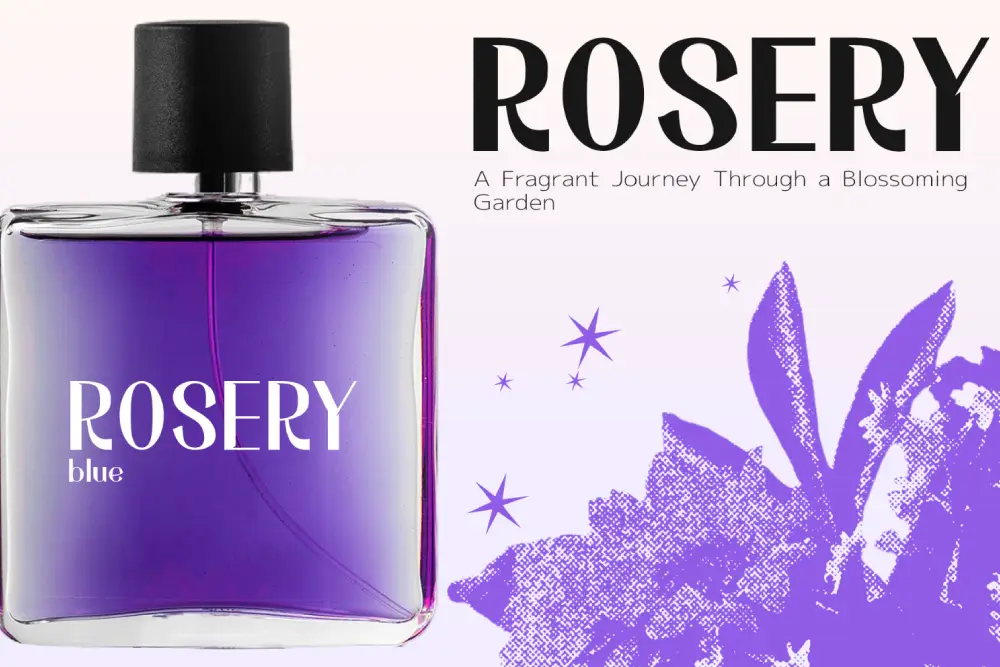
Locrian keeps luxury grounded with precision. Its high contrast strokes make it perfect for magazine covers, in-store signage, or long-form storytelling on perfume cards.
And when you want to evoke the glamour of art-deco couture, Olyphs is your visual time machine. This typeface radiates 1920s opulence—geometric, golden, cinematic. Imagine it engraved on a crystal bottle or printed on velvet packaging.
Luxury is not just about polish—it’s about humanity.
That’s why modern brush and handwritten fonts are finding their place in high-end cosmetics and limited-edition perfumes.
Astogria Bejha adds organic authenticity. It’s perfect for artisanal skincare or nature-inspired perfume series. The hand-drawn strokes make your brand feel genuine yet refined.
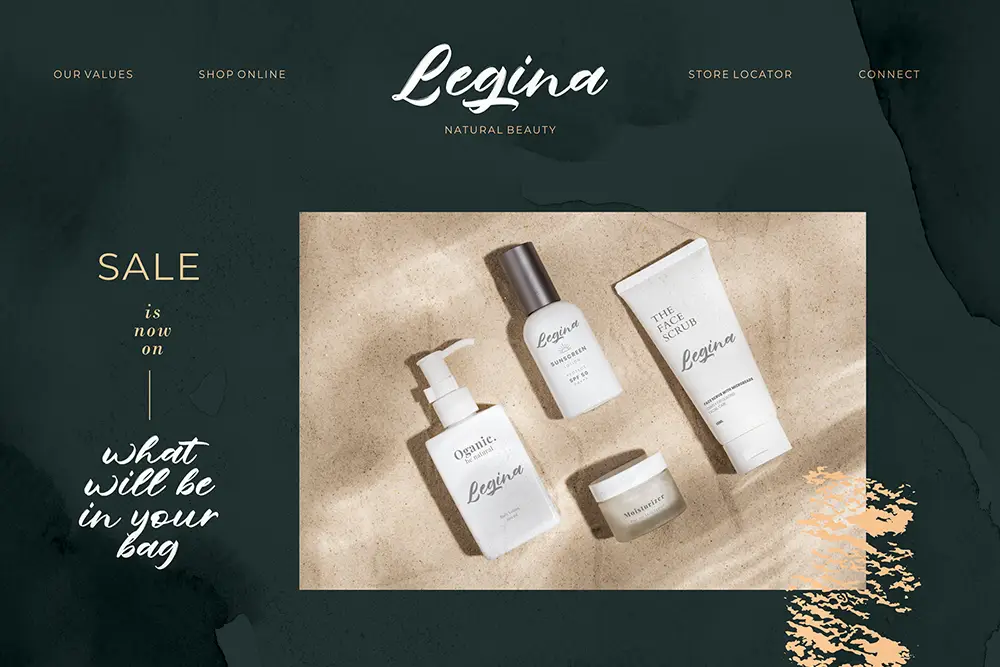
Then there’s Hadejah, an elegant signature font designed for personal flair. Perfect for perfume designers who brand themselves—its fluid, graceful curves express individuality and refinement.
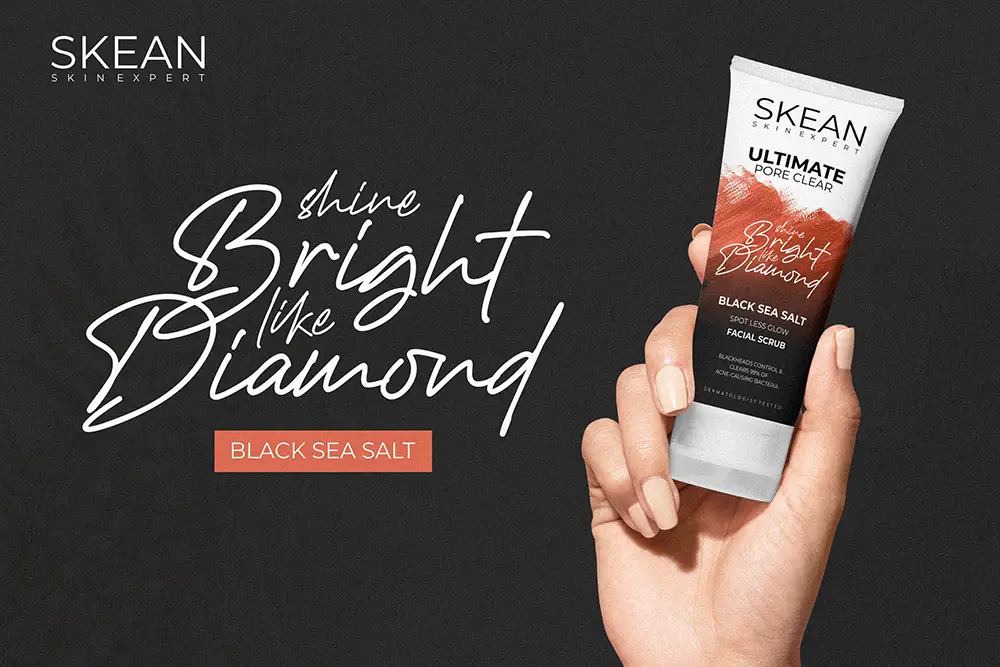
And Rudgion balances confidence with charisma. Ideal for bold, feminine cosmetics lines that want a touch of vintage confidence in their typography.
Luxury isn’t always floral or soft. Some brands demand power.
The modern perfume market for men leans toward confident geometry, gothic edges, and futuristic refinement.
That’s where Quartus thrives—a modern blackletter font designed for masculine perfume packaging. Sharp, controlled, and dramatic—it’s your secret weapon for a dark, confident line like “Noir” or “Obsidian”.
Monstarch offers that bold, commanding presence often found in luxury men’s colognes. Its sturdy forms translate strength without losing sophistication.
For dynamic, sporty perfume or deodorant lines, Aerobody brings speed and precision. It’s modern, structured, and built for energy.
And if your concept merges technology with minimalism, Byte Sharp is perfect. Its futuristic sans character fits cleanly into luxury branding for gender-neutral or tech-inspired cosmetics.
While decorative fonts capture attention, sans-serifs sustain trust. Every luxury beauty brand needs at least one clean, functional typeface to hold the system together.
Bolde and Gued are your anchors. Bolde provides strong hierarchy for taglines and website headers, while Gued’s geometric rhythm ensures clarity on ingredient labels and mobile layouts.
Together, they balance your expressive display fonts with refined stability—proof that modern luxury can also feel effortlessly simple.
In the editorial side of beauty—campaigns, packaging, and fashion collaborations—display serifs elevate storytelling.
Neobique embodies futuristic elegance. Its sharp serifs and airy spacing add couture-like sophistication to high-fashion perfume ads.
Combine it with Break Fridays for strong campaign headlines; the clean bold script adds contrast and vibrancy without overpowering the luxury core.
Luxury branding is about emotion hidden in precision. Over the years, we’ve seen countless designers chase ornament, but the most unforgettable brands invest in consistency. One serif, one sans, and one accent script—when used intentionally—create a system that breathes authority.